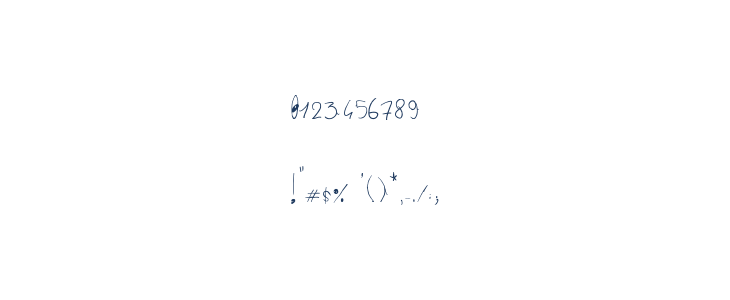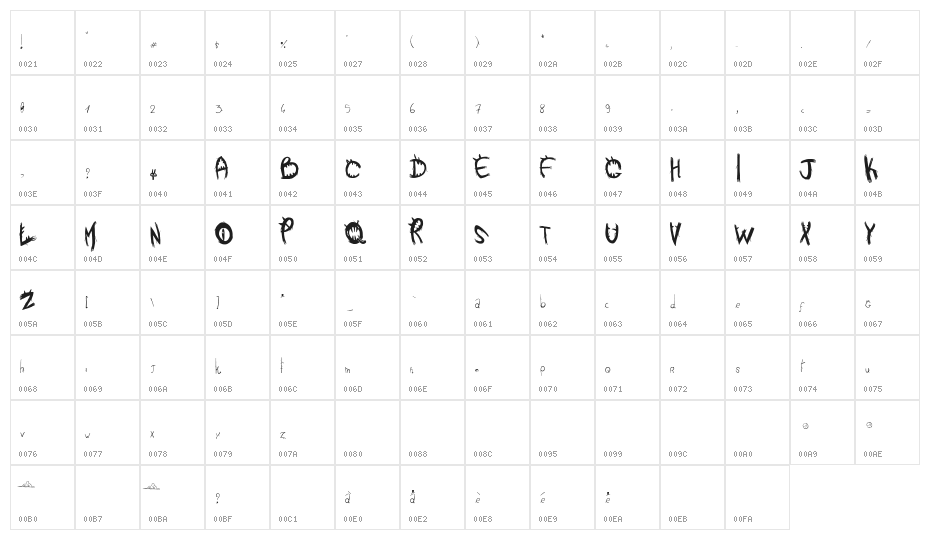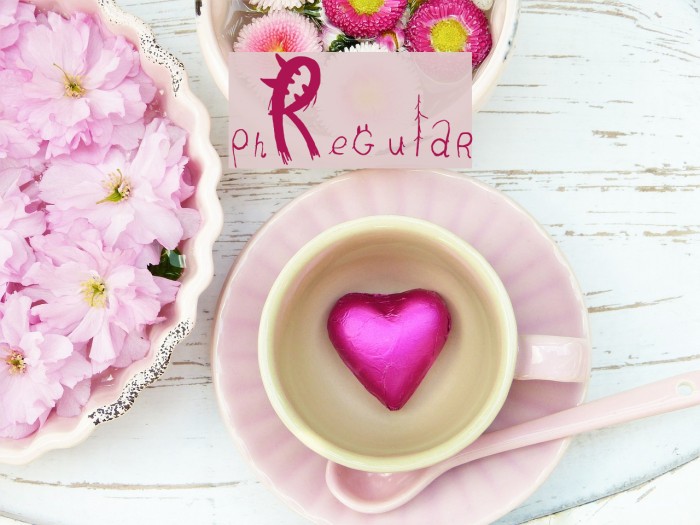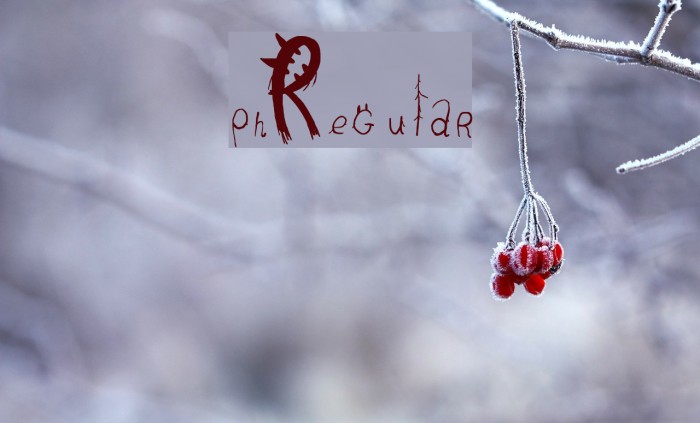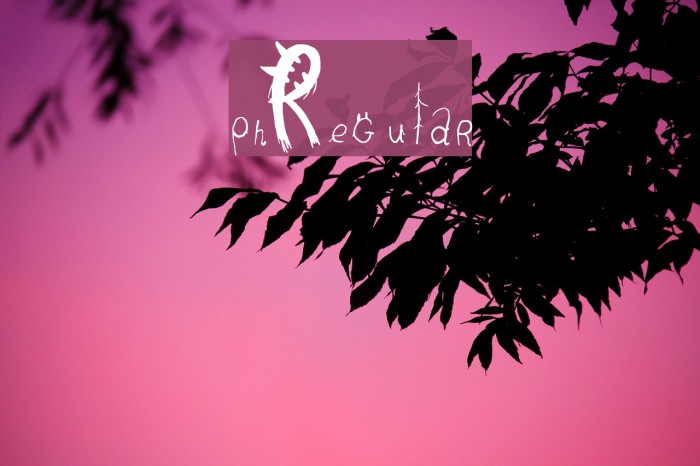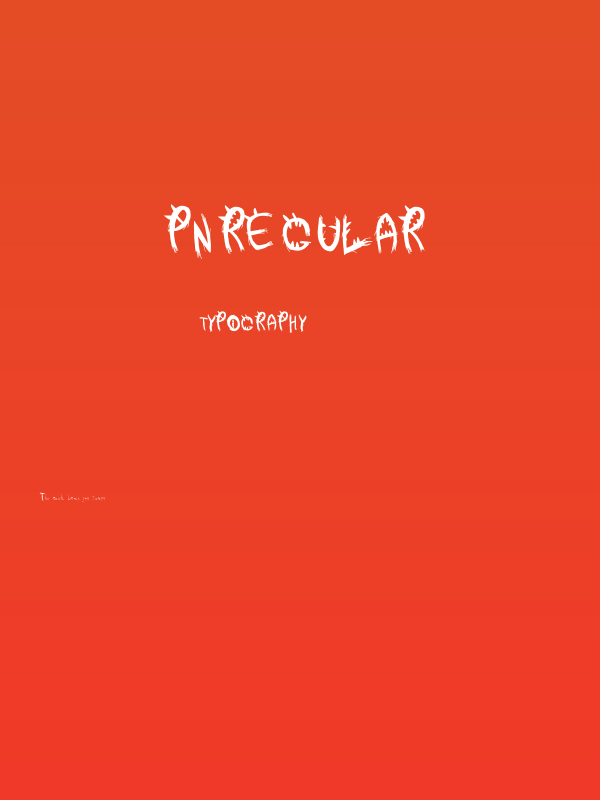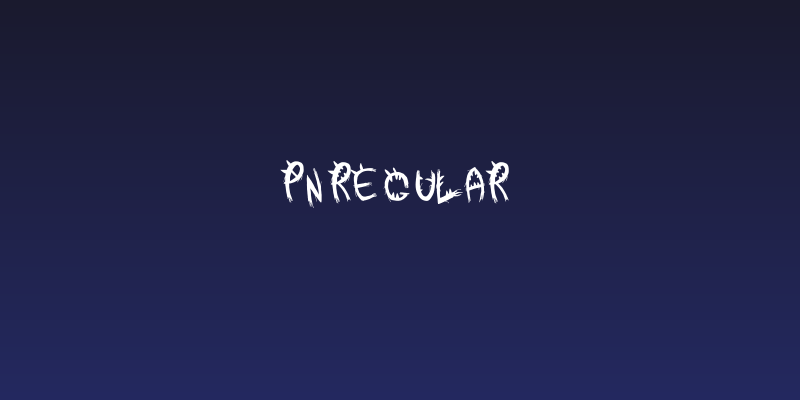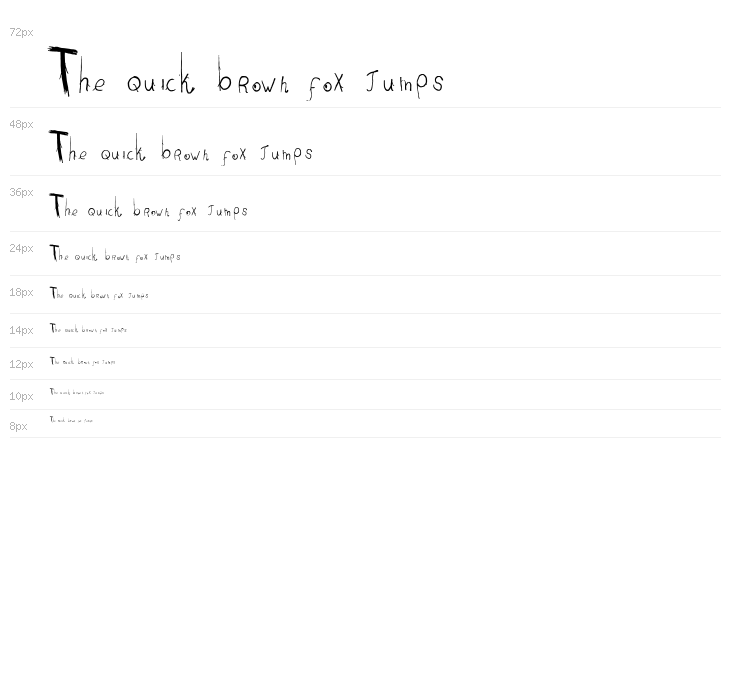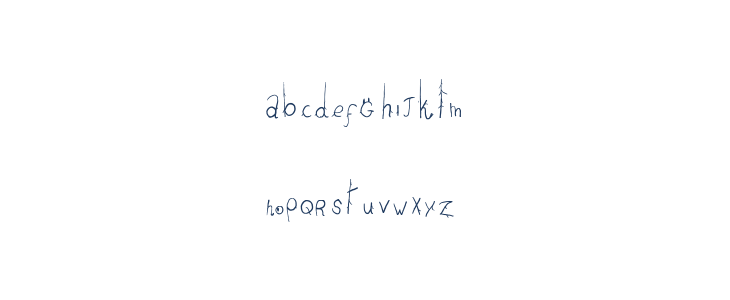
pnÏRegular Font
pnÏRegular Description
This font features a highly decorative and artistic style, characterized by jagged, irregular strokes that give it a wild and untamed appearance. The uppercase letters are bold and dramatic, with sharp edges and a sense of movement, reminiscent of brush strokes or natural elements like twigs or thorns. The lowercase letters maintain a similar aesthetic but are more delicate, with thin lines and a slightly whimsical feel. Numbers and special characters follow the same design principles, ensuring consistency across all elements. This font's unique style makes it stand out, offering a creative and edgy look that is both eye-catching and memorable.
| Proposed Projects | Ideal for Halloween-themed designs, edgy posters, album covers, or any project requiring a bold, artistic touch. |